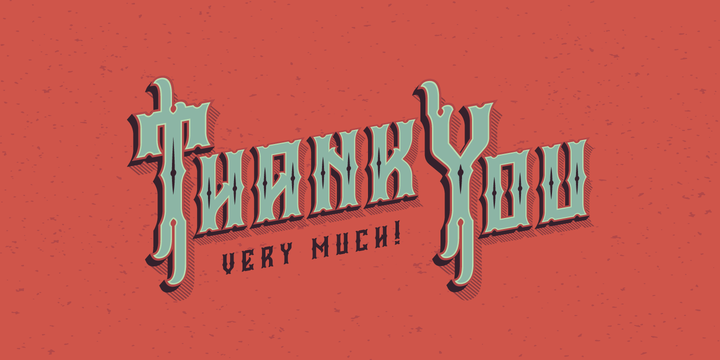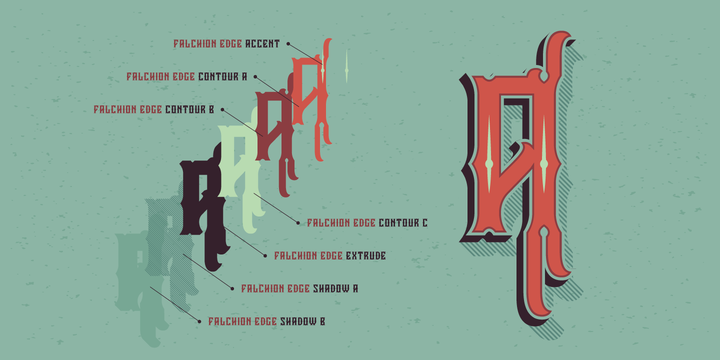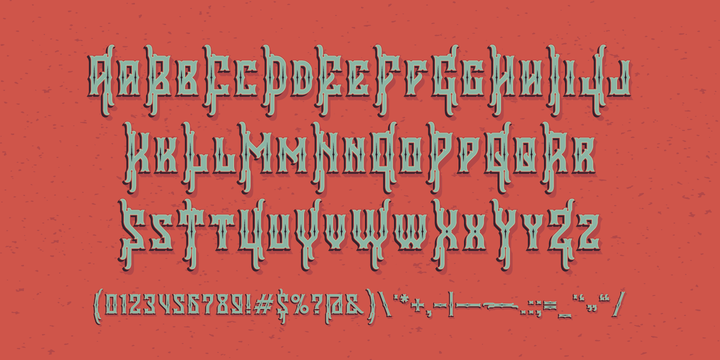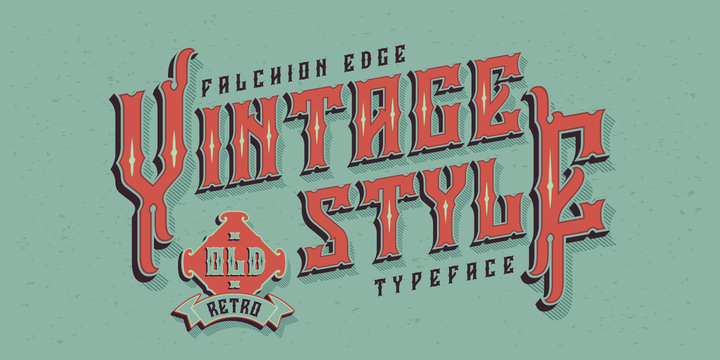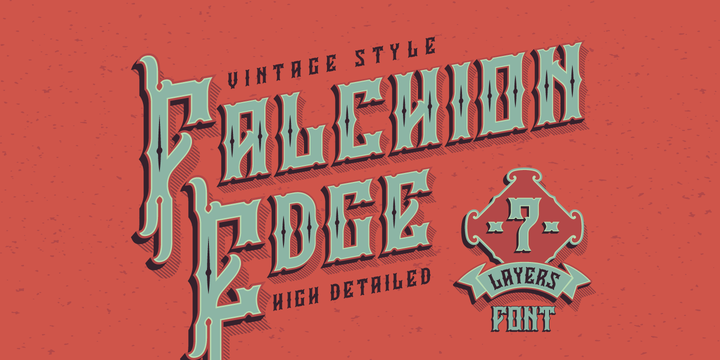
Hi! Presenting another one vintage style typeface Falchion Edge. It has lots of details and consists of different font layers. Also it includes a file with merged layers into one font.